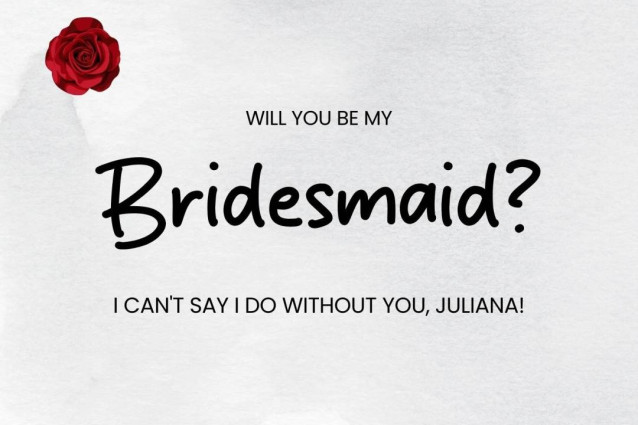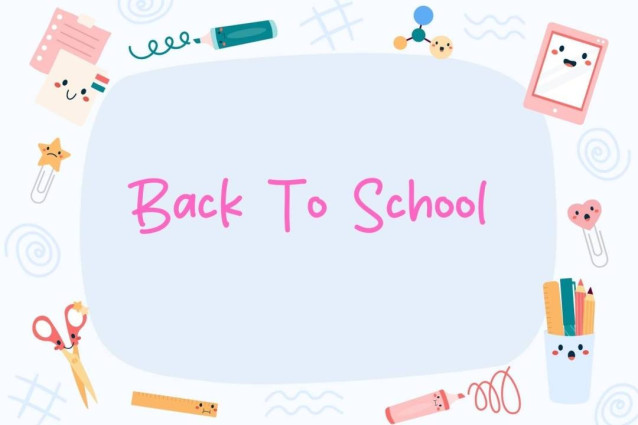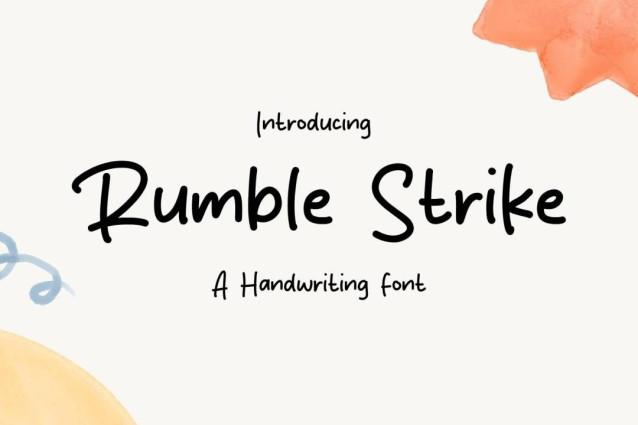
Rumble Strike Font
Rumble Strike Font is a simple and friendly handwritten font. Its natural and unique style makes it incredibly fitting to a large pool of designs. The only limit is your imagination!